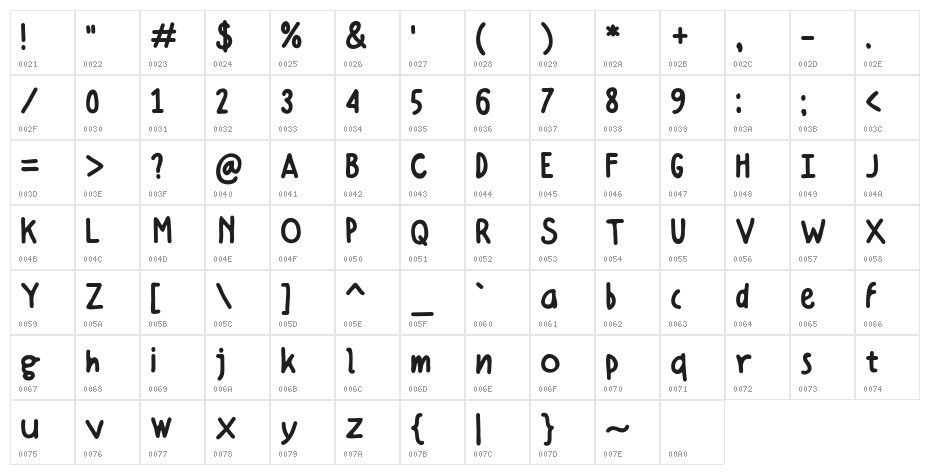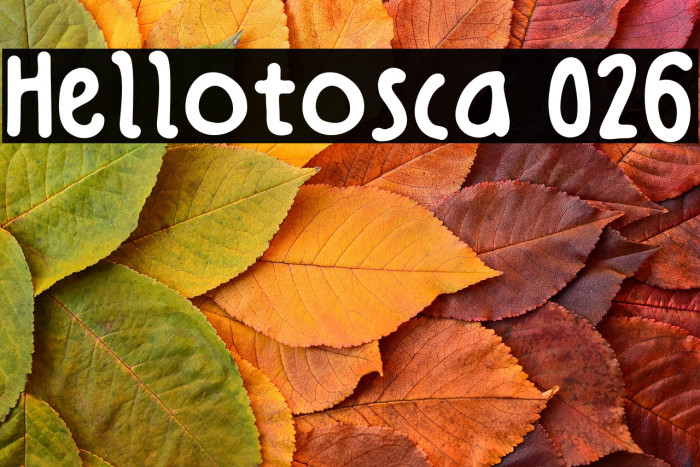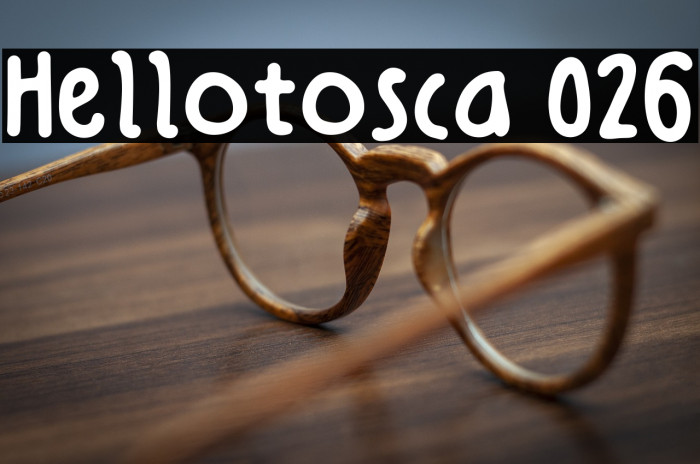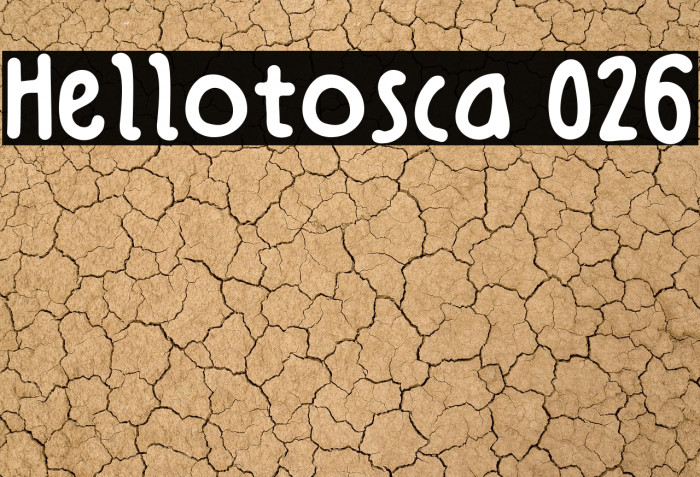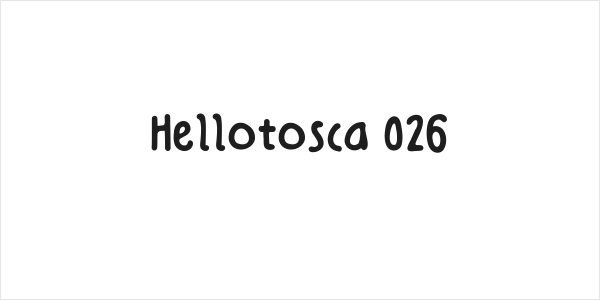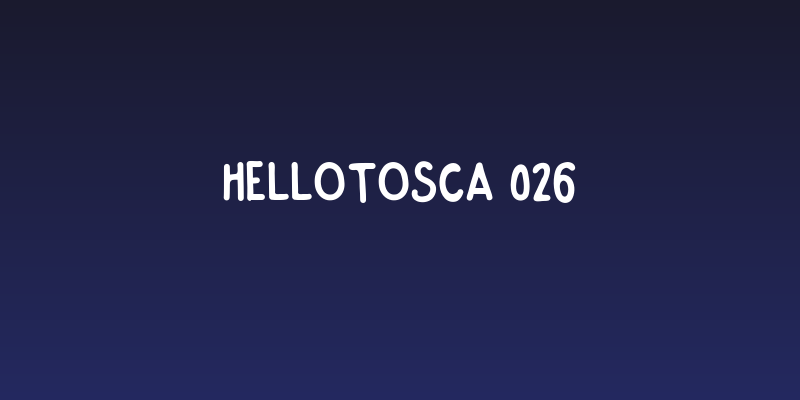
Hellotosca 026 Font
Hellotosca 026 Description
This font features a playful and bold handwritten style, characterized by its rounded edges and slightly irregular shapes. The uppercase letters are tall and maintain a consistent height, while the lowercase letters exhibit a charming, casual flow. The numbers are clear and easy to read, with a similar playful quality. Special characters are well-integrated, maintaining the overall whimsical aesthetic. The font's boldness and unique style make it stand out, perfect for projects that require a touch of personality and creativity.
| Proposed Projects | Ideal for children's books, playful branding, greeting cards, and creative posters. |